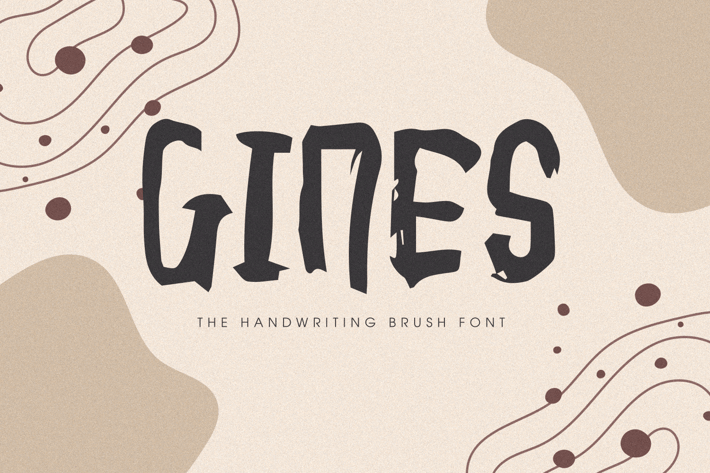
Gines - A Handwriting Font
Introducing Gines - A Handwriting Font. It comes with brush texture style which is perfect to make any design stand out! This font is perfect for branding, wedding invites, magazines, mugs, business cards, quotes, posters, and more.